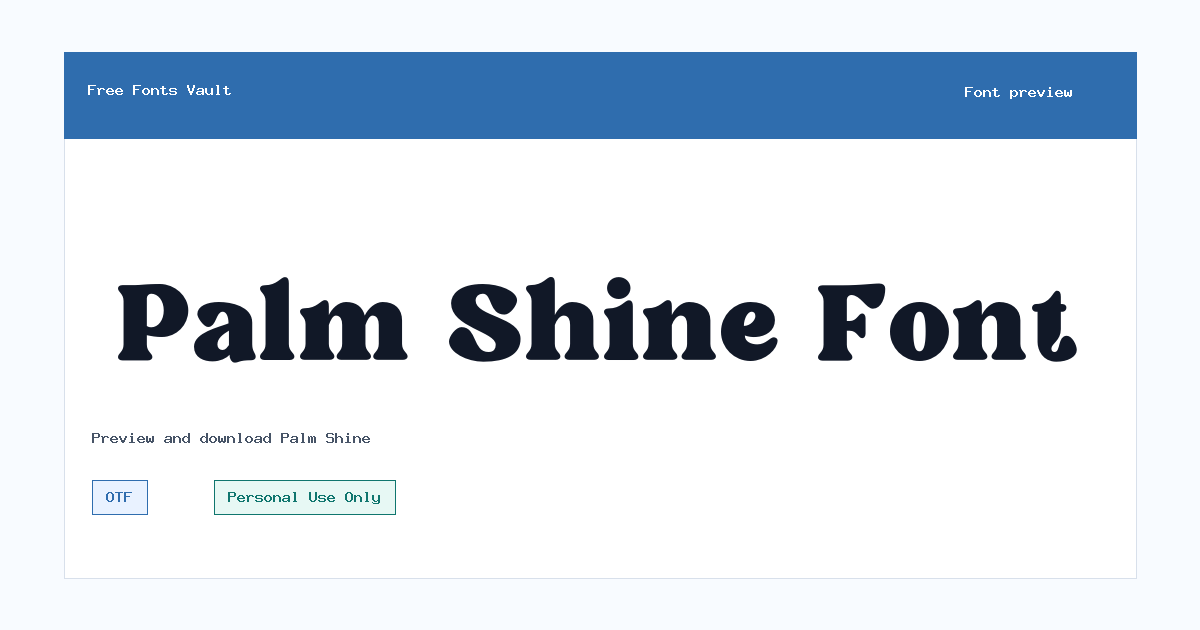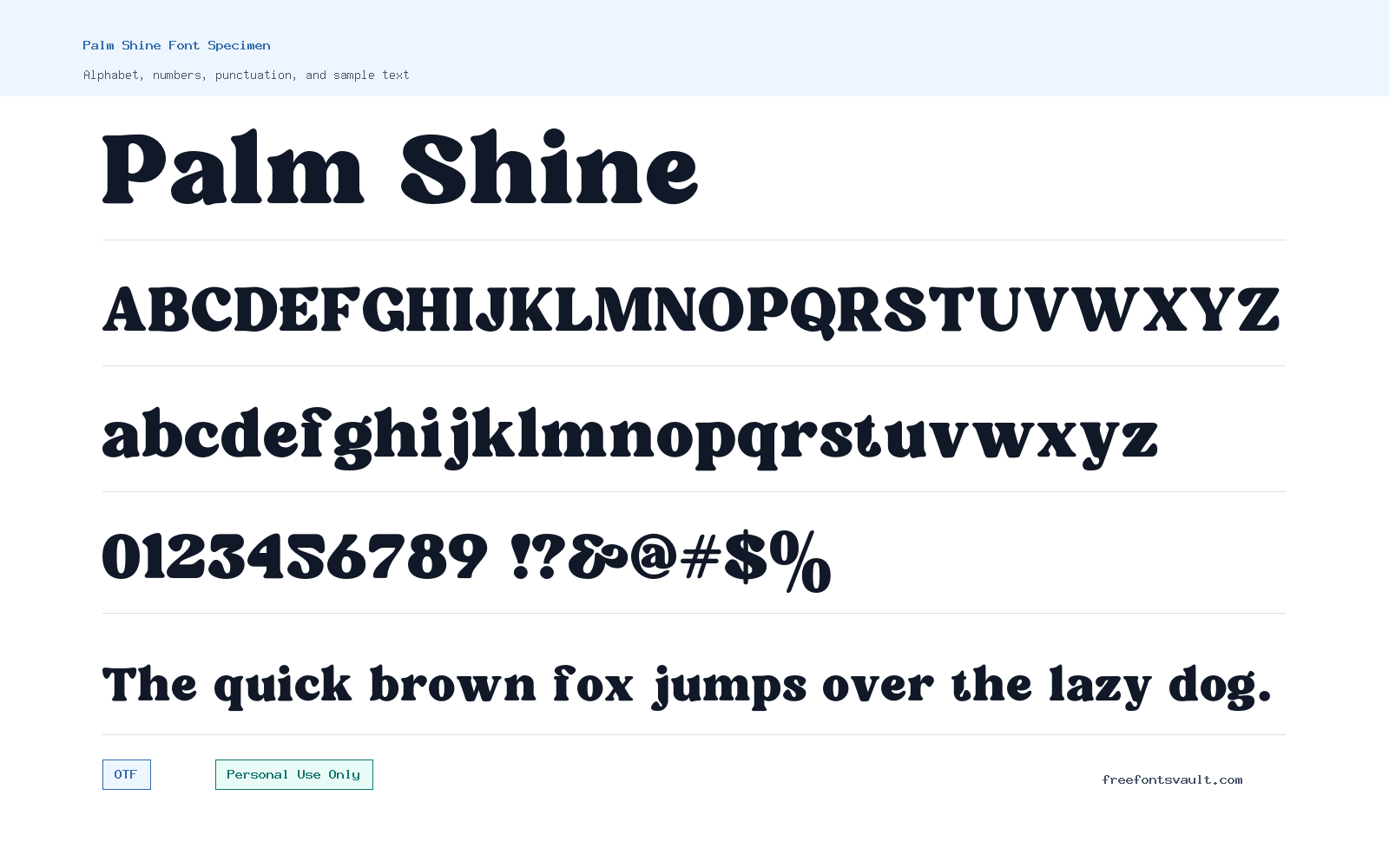
Palm Shine
- Designer Bakhrudin Ja'far
- Foundry Bakhrudin Ja'far
Palm Shine font.
Palm Shine is a bold decorative serif font with a heavy, rounded look and playful cut-in details. It works best when you want short words or titles to feel strong, friendly, and easy to notice.
About Palm Shine Font
Palm Shine has a chunky serif style with thick strokes, soft curves, and compact letter shapes. The uppercase letters feel sturdy and poster-like, while the lowercase keeps the same bold rhythm with a few quirky details that give the typeface more personality. It is not a quiet text face; it is made for display use, where the letters can be shown large enough for their shapes to stand out.
Use Palm Shine for short headlines, labels, social graphics, quote images, personal posters, craft designs, and title-style lettering. It can also suit food, summer, handmade, or casual lifestyle layouts when the design needs a warm decorative serif rather than a clean modern font. For best results, keep the wording short, leave enough spacing around the text, and test both uppercase and lowercase in the preview before downloading.
- Decorative serif letterforms with thick strokes, rounded curves, and strong display impact.
- Best suited to titles and short text rather than long paragraphs.
- Personal posters and printable designs
- Social media titles and quote graphics
- Logo drafts, labels, and packaging mockups for non-commercial testing
- Headlines, banners, and display lettering
Palm Shine is credited to Bakhrudin Ja'far, with the same name also listed as the foundry credit.
Try Palm Shine at larger sizes first. Its heavy strokes and decorative serifs are easier to read in headlines than in body copy. If you use it with another font, pair it with a plain sans serif or a simple text serif so the layout does not become too busy. Avoid using all caps for very long lines, because the compact shapes can start to feel crowded. For clean results, test spacing, line height, and contrast against your background before exporting your design.
What kind of font is Palm Shine?
Palm Shine is a bold decorative serif font. It has thick strokes, rounded forms, and a display style that works better for titles than for long reading text.